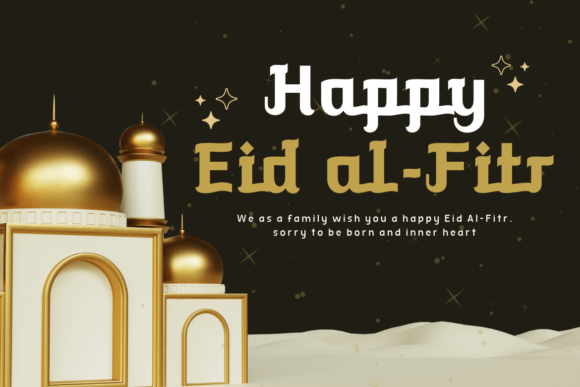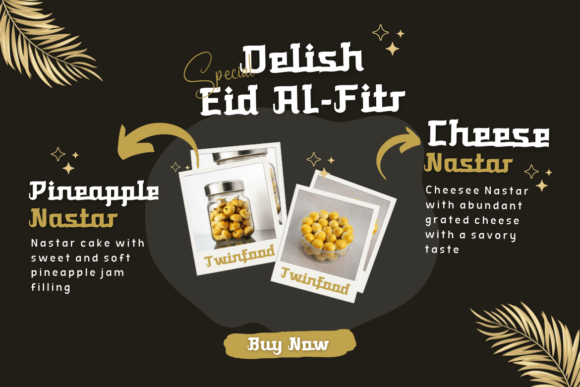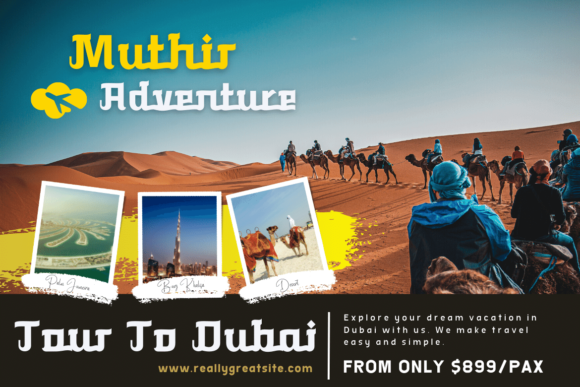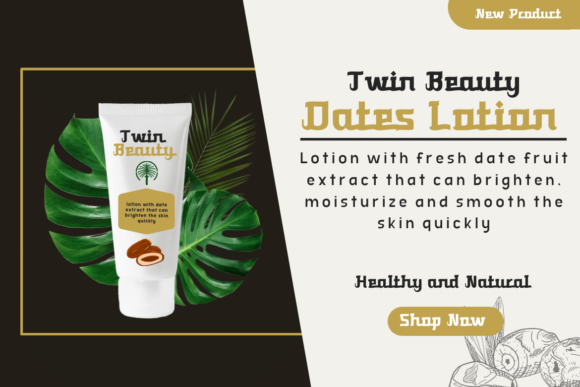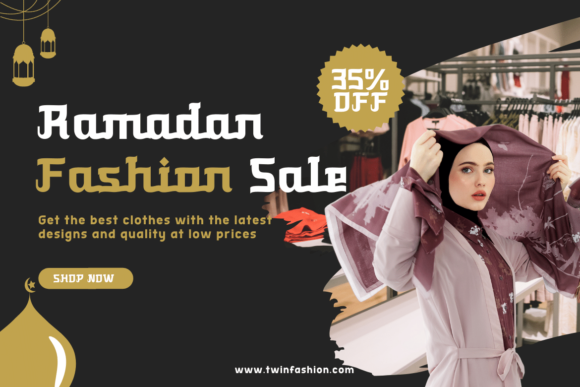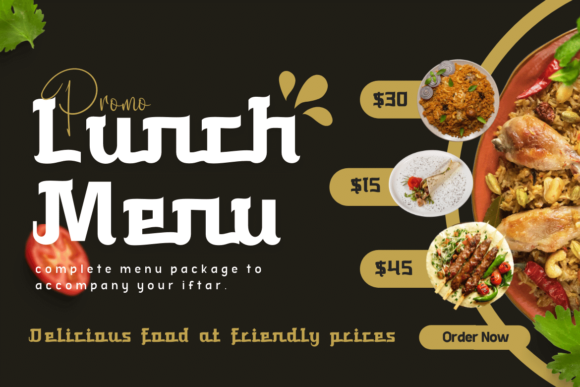
Introduction to Rikafu Font
Introducing Rikafu Arabic font.
Create beautiful Arabic and Islamic ornament designs using this exclusive font All characters and alternates are beautifully styled.
Key Features of Rikafu Font
Why Choose Rikafu Font?
Rikafu Font offers exceptional quality and versatility, making it a valuable addition to your design toolkit. Whether you’re creating for personal projects or commercial use, Rikafu Font delivers professional results.